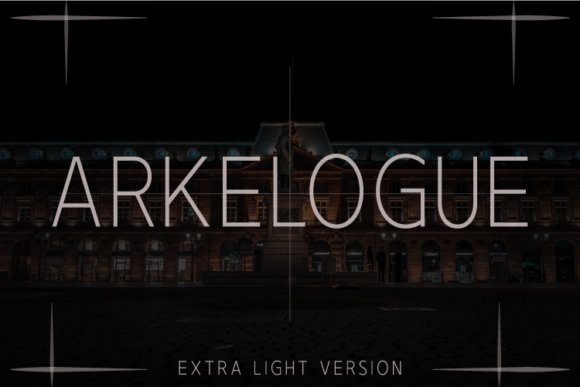
Have you ever found yourself staring at a blank page, eager to bring your design idea to life, but struggling to find the right font to set the tone? It’s a moment we’ve all been in, and it’s precisely when we need the right tools to spark our creativity. For designers seeking a clean and simple sans serif font that can elevate their work, look no further than the Arkelogue Extra Light Font.
This versatile font offers a beautiful arrangement of letters that exudes a sense of sophistication and elegance, making it an excellent choice for both formal and non-formal designs. With its 10 different weights, you can choose the perfect version to suit your project’s needs. Whether you’re working on a professional brochure or a personal blog, the Arkelogue Extra Light Font is an invaluable asset that can help you achieve your design goals.
- Font Family: Arkelogue Extra Light, a unique and elegant sans-serif font designed for modern applications.
- Unique Characteristics: Arkelogue Extra Light features a clean and minimalist design, with subtle rounded edges and a delicate touch, making it perfect for modern branding and design projects.
Arkelogue Extra Light Font Review
Overall, I have mixed feelings about Arkelogue Extra Light Font. ✨ On the positive side, it has a beautiful, elegant feel that makes it perfect for high-end branding or sophisticated publications. The font is incredibly versatile and works well in a variety of settings, from headings to body text. The character set is also comprehensive, with a wide range of languages supported.
- ✨ Elegant and sophisticated feel
- ✨ Versatile and works well in various settings
- ✨ Comprehensive character set with support for multiple languages
However, there are some limitations to consider. ⚠️ One major issue is the font’s lack of legibility at smaller font sizes. It can become difficult to read, especially for those with visual impairments. Additionally, the font may not be suitable for digital applications where text is often displayed at small sizes.
- ⚠️ Lack of legibility at smaller font sizes
- ⚠️ May not be suitable for digital applications
In conclusion, Arkelogue Extra Light Font is a beautiful and elegant choice for high-end branding or sophisticated publications. However, its limitations may make it less suitable for certain applications, such as digital media or text-heavy content.
Use the Arkelogue Extra Light font for titles, headings, and other display text to add a touch of elegance to your designs.
Pair the font with a bold or serif font for a contrasting effect.
Use the Arkelogue Extra Light font for:
Business cards and brochures